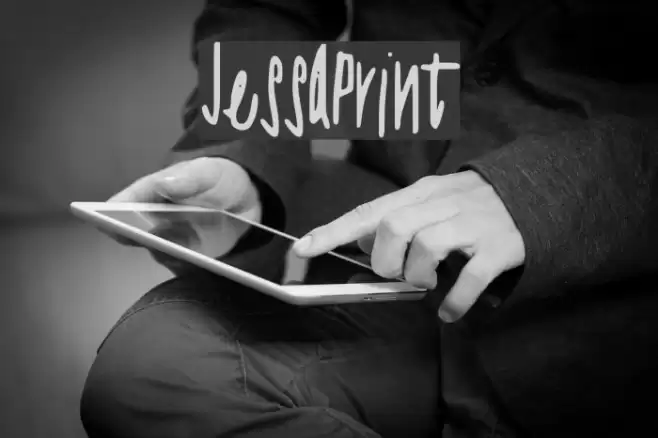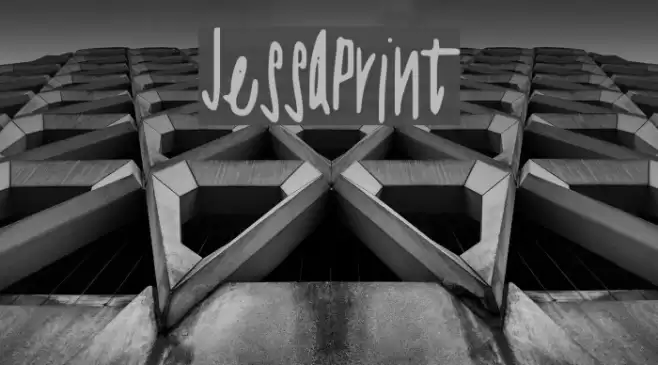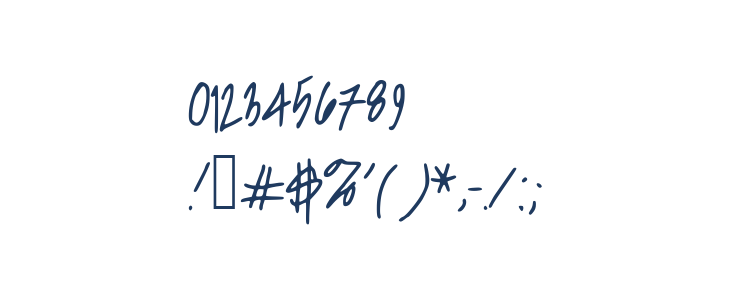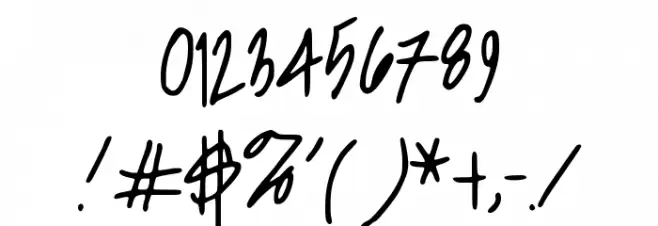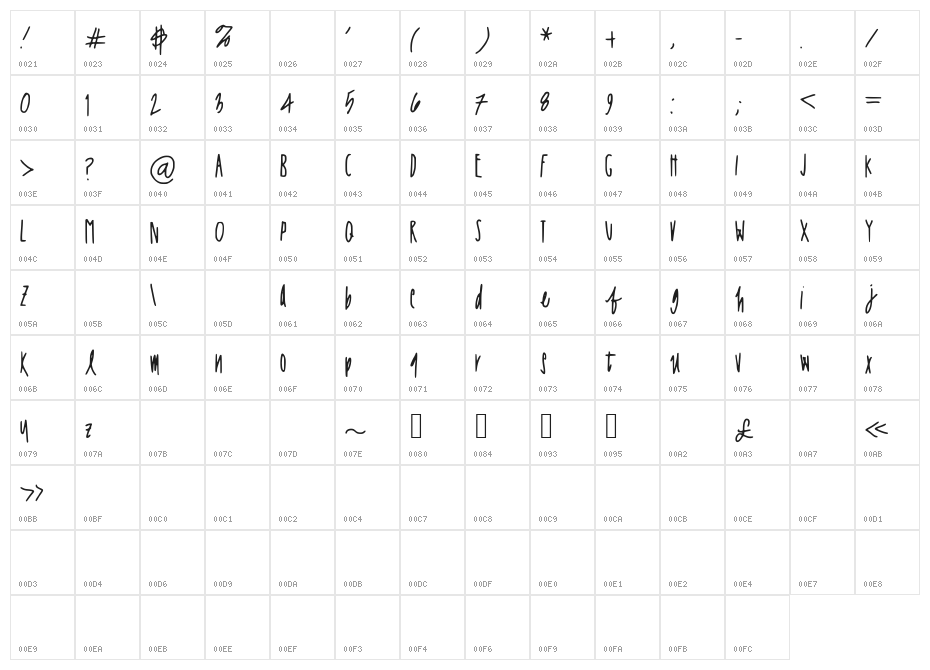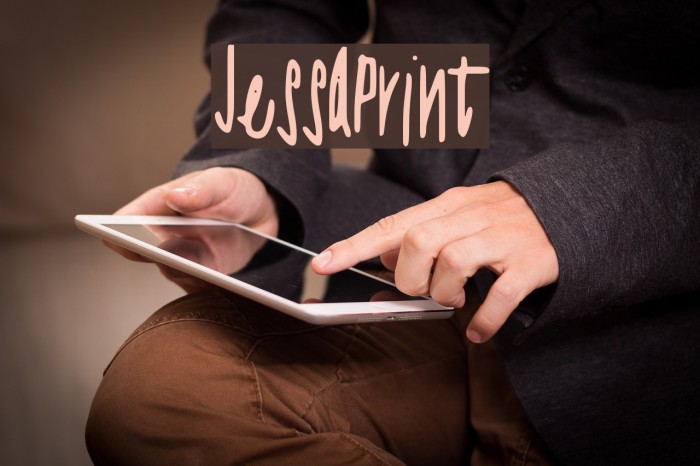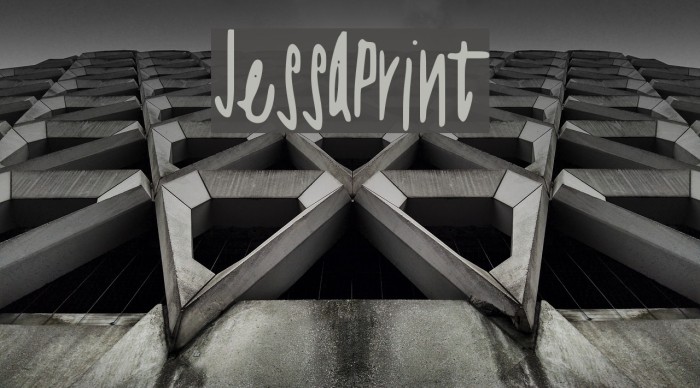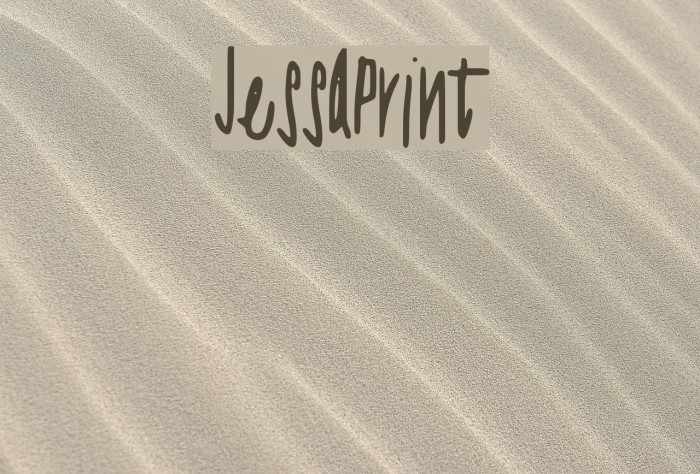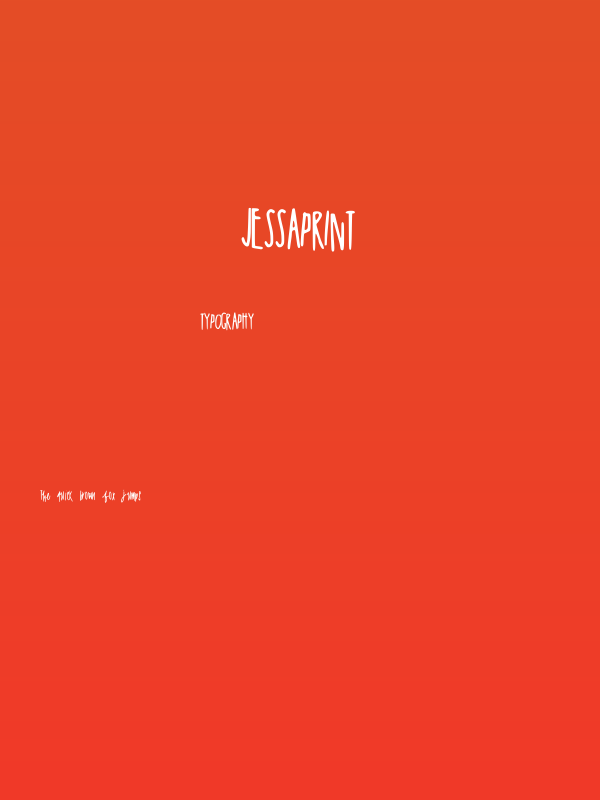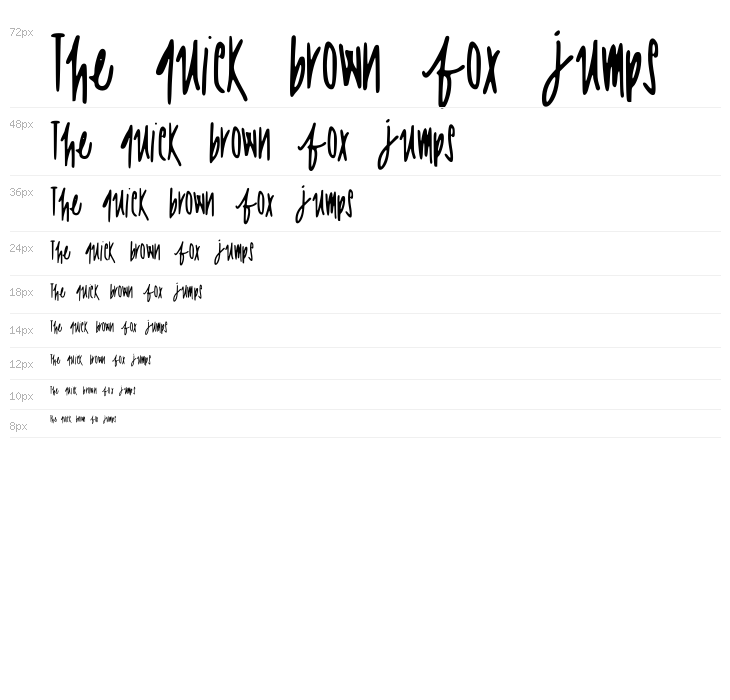
JessaPrint Font
JessaPrint Description
This font features a playful and casual handwritten style, characterized by its fluid and organic letterforms. The uppercase and lowercase letters are distinct yet harmonious, with a slightly irregular baseline that adds to its charm. The numerals and special characters maintain the same whimsical aesthetic, making it versatile for various design needs. Its strokes are consistent in width, providing a balanced appearance without high contrast. The overall look is friendly and approachable, suitable for projects that require a personal touch.
A playful, handwritten font with a casual and organic style from Uncategorized fonts.
- Proposed Projects: Ideal for greeting cards, invitations, personal branding, and social media graphics.
- Overall Style: Casual, Playful
- Use Case: Headlines, Informal text, Creative projects